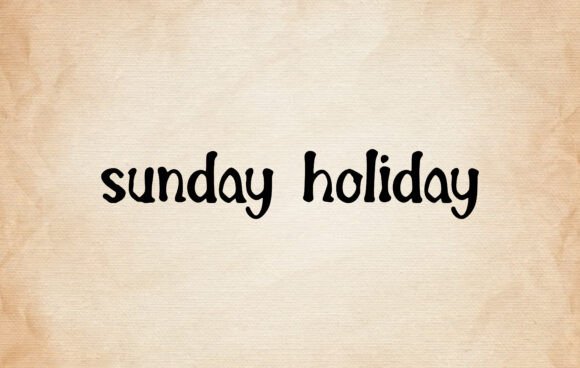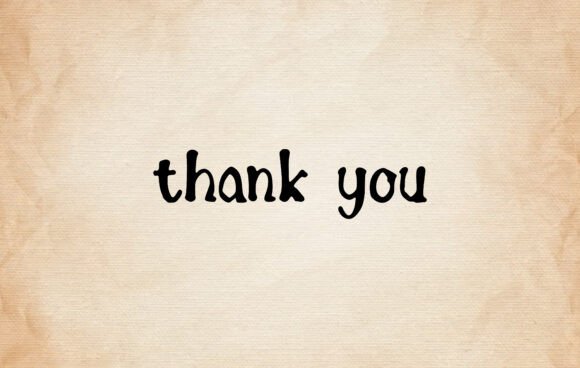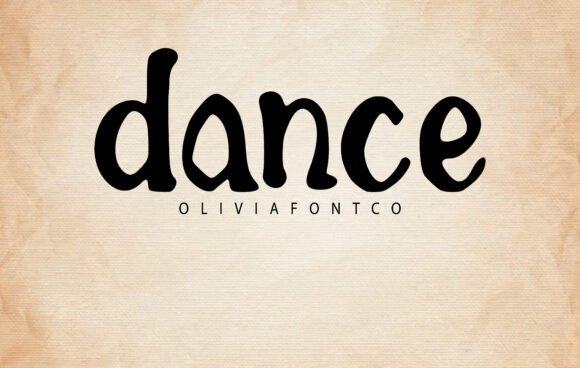
Dance Font: Elevate Your Creative Projects with Style and Legibility
Are you a designer, crafty enthusiast, or simply someone who loves to express themselves through creative projects? Look no further than the Dance Font, a versatile and stylish typeface designed to take your ideas to new heights. With its perfect blend of legibility and visual appeal, this font is poised to become your go-to choice for a wide range of design applications.
What Makes Dance Font Stand Out?
This font is designed to be a true favorite among designers and crafters alike. Its unique charm and character make it an excellent choice for projects that require a touch of personality and flair. Whether you’re working on magazine headlines, t-shirts, social media graphics, branding materials, wedding invitations, or cards, Dance Font is the perfect companion to help you bring your creative vision to life.
Legibility and Versatility
One of the standout features of Dance Font is its exceptional legibility. Whether you’re using it as a title or body text, this font remains clear and easy to read, even at smaller sizes. This makes it an excellent choice for designers who need to balance style with functionality. The font’s versatility is also noteworthy, as it can be used in a variety of contexts, from formal and elegant to playful and whimsical.
Dance Font’s flexibility makes it an ideal choice for numerous design projects, including:
• Magazine Headlines: Add a touch of glamour and sophistication to your magazine covers with Dance Font’s elegant and eye-catching style.
• T-Shirts and Apparel: Create stylish and memorable designs for t-shirts, hoodies, and other clothing items that will make your brand or message stand out.
• Social Media Graphics: Elevate your social media presence with Dance Font’s modern and engaging style, perfect for creating eye-catching posts, stories, and ads.
• Branding and Identity: Establish a strong brand identity with Dance Font’s unique and recognizable style, suitable for logos, business cards, and other marketing materials.
• Wedding Invitations and Cards: Add a touch of elegance and romance to your wedding invitations, cards, and other stationery with Dance Font’s beautiful and sophisticated style.
Why Choose Dance Font?
With so many fonts available, why choose Dance Font for your creative projects? Here are just a few reasons:
• Unique Style: Dance Font offers a distinctive and stylish aesthetic that will set your designs apart from the crowd.
• Exceptional Legibility: This font is designed to be clear and easy to read, making it perfect for both title and body text.
• Versatility: Dance Font can be used in a wide range of design applications, from formal and elegant to playful and whimsical.
In conclusion, Dance Font is an exceptional typeface that offers a perfect blend of style, legibility, and versatility. Whether you’re a designer, crafty enthusiast, or simply someone who loves to express themselves through creative projects, this font is sure to become a favorite in your collection. With its wide range of applications and ease of use, Dance Font is the perfect choice for anyone looking to elevate their creative ideas to new heights.